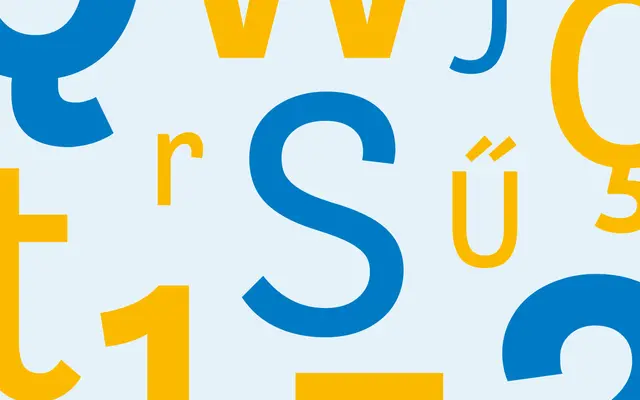
Bligh
Dalton Maag · Luisa Baeta · 2015
A three-weight casual sans by Luisa Baeta with curvy terminals and a quirky skeleton, drawn for projects that want personality.
Dalton Maag's Bligh is a casual sans by Luisa Baeta, designed and developed 2015 to 2017. It runs in three weights (Light, Regular, Bold) and covers Latin with support for over 750 languages. OpenType features include case-sensitive forms, fractions and an icon set. The page frames its inspiration as global voyages and adventure during the age of exploration and the industrial revolution.
Dalton Maag describes Bligh as a casual sans typeface with curvy terminals and a quirky skeleton, inspired by global voyages and adventure during the age of exploration and the industrial revolution.